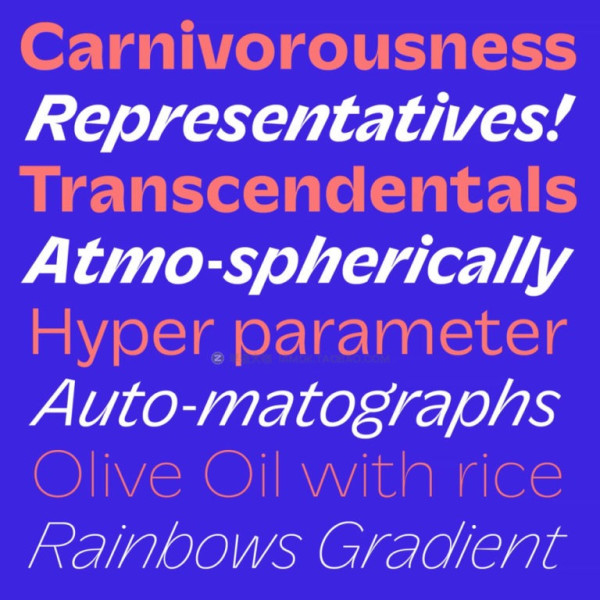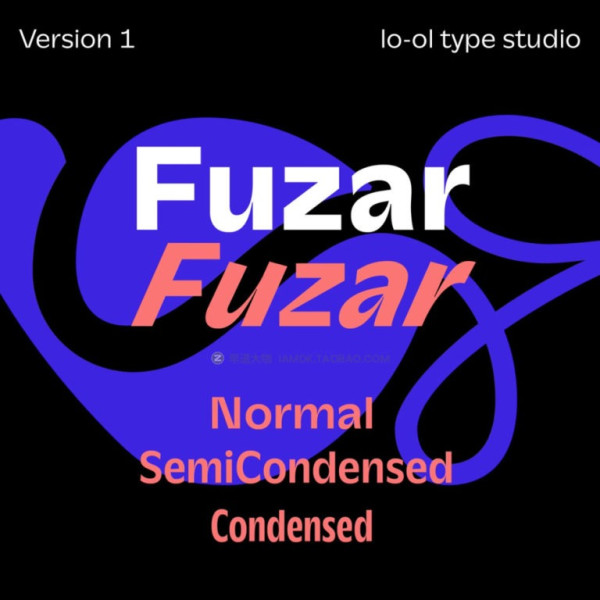
Fuzar Font
Fuzar Font is a typeface family that belongs to the neo-grotesk category, which means it is a modern sans-serif design. The family includes three different widths, which provide more versatility in its use. The primary shapes of Fuzar have a lively and dynamic appearance with a noticeable contrast between thick and thin strokes.
The upright cut of it is based on a geometric skeleton, giving it a structured and orderly look. In contrast, the italic version of Fuzar is designed with more harmonious proportions, giving it a smoother and more fluid appearance. The italic version also has a very expressive design that is reminiscent of the traditional italics found in serif typefaces.
Overall, it is a typeface family that offers a balance between structure and playfulness, making it a versatile choice for a wide range of design applications.